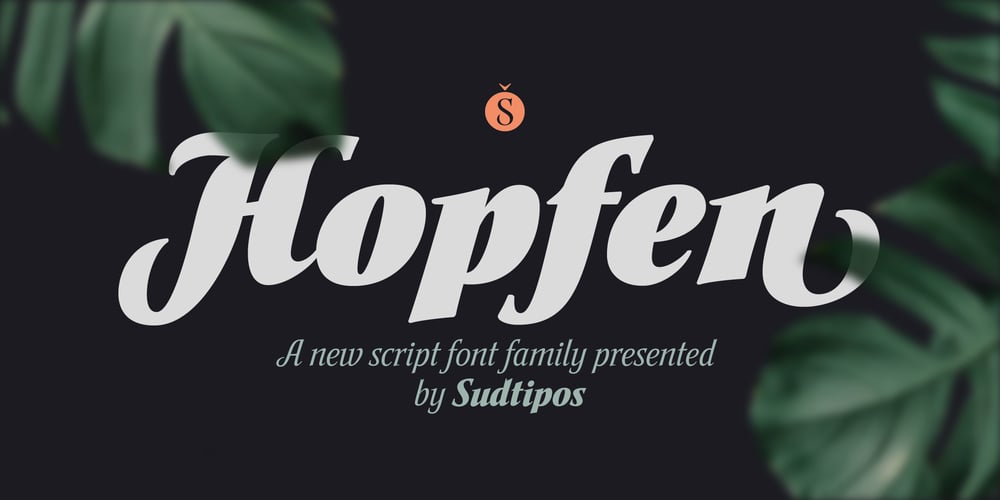
Hopfen Font Family was designed by Alejandro Paul and published by Sudtipos. Hopfen contains 6 styles and family package options. During many years I have been exploring the translation from lettering or calligraphy to type design. Lately I have been designing more big sans and serif families plenty of weight. One of the main things about Hopfen is to bring back the german lettering of Bentele, who also inspired my fonts Semilla and Bowling Script, to a more versatile and useful world. Hopfen has the spirit from the past but with today’s flow, it comes in 5 weights, full of swashes, endings and alternates. We imagine it being used from Breweries to book covers, from packaging to movie posters but we prefer to let our costumers to find the better use. When you license the complete Hopfen set we will include the variable version of the set so that you can find the right weight.